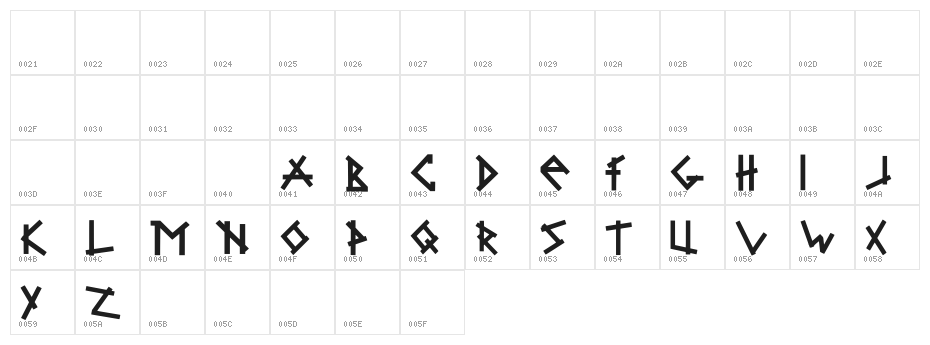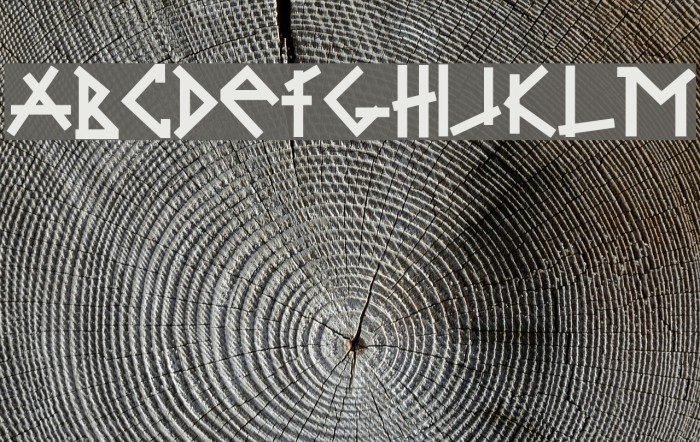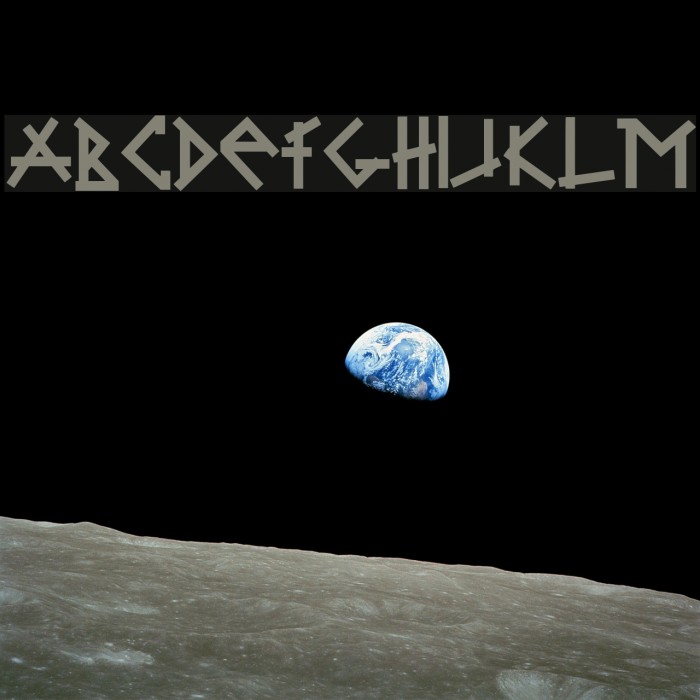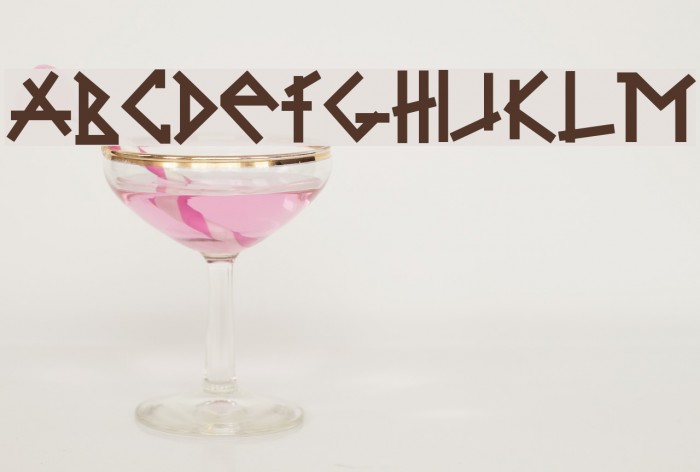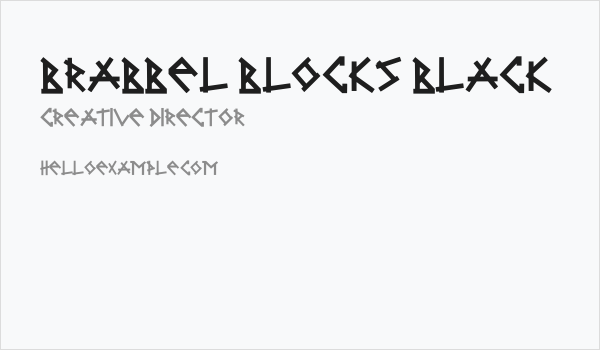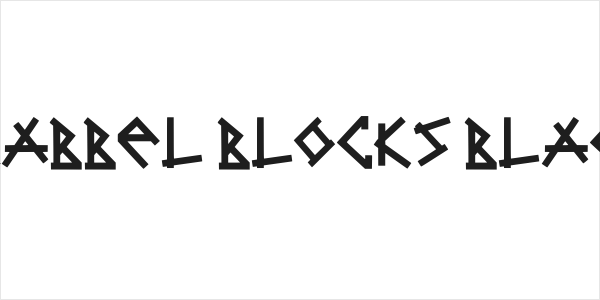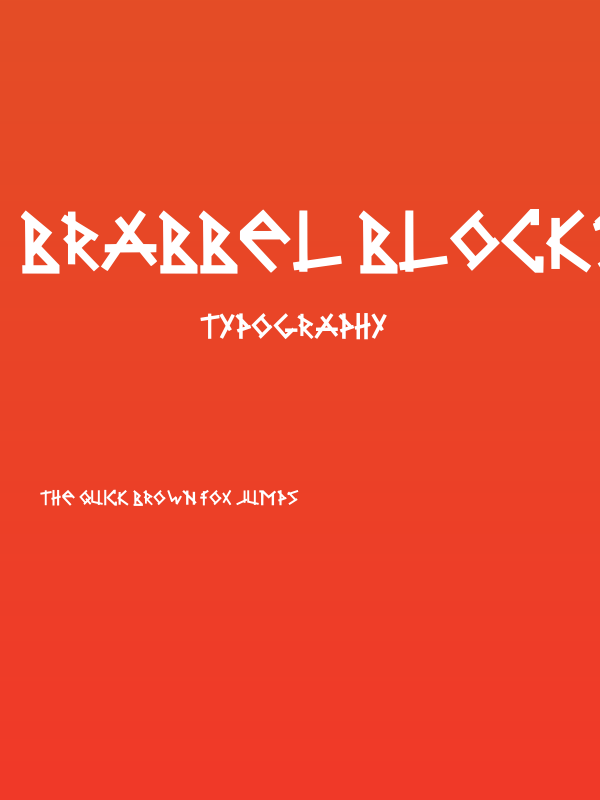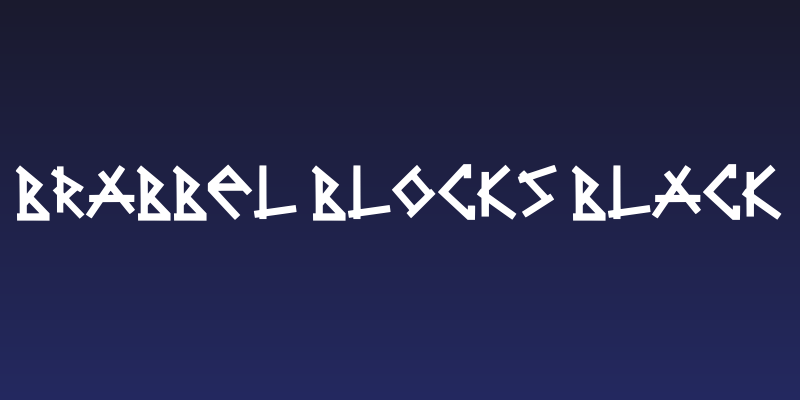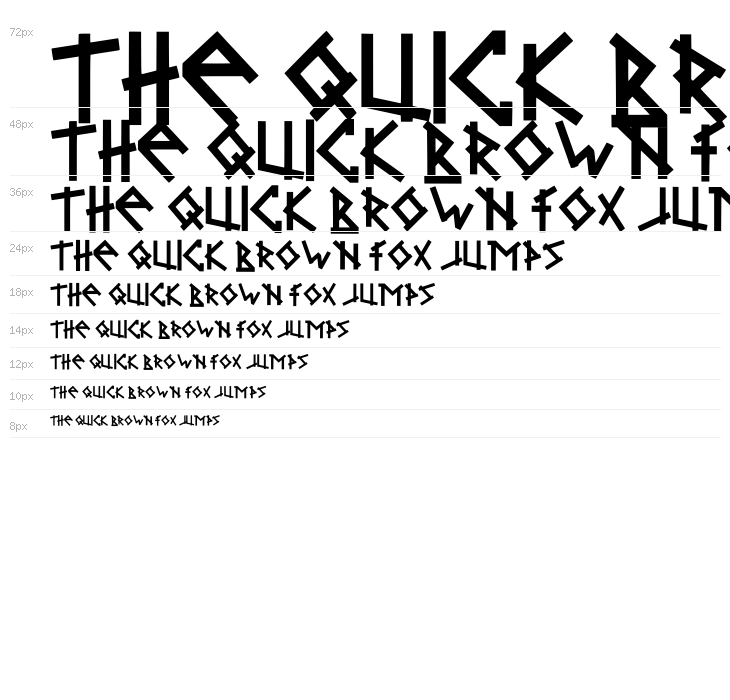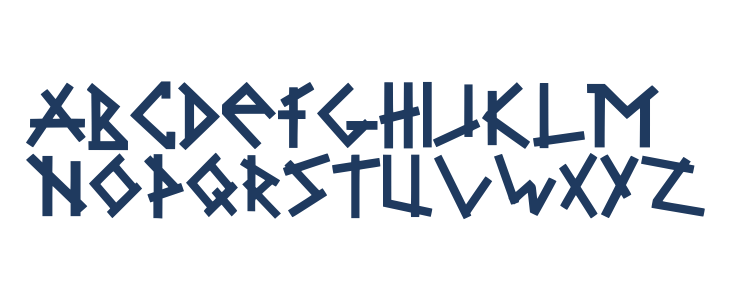
Brabbel Blocks Black Font
Brabbel Blocks Black Description
This font features a bold and striking design with angular, geometric shapes that create a sense of movement and energy. The characters are constructed with thick, block-like strokes that give a strong and assertive appearance. The unique style incorporates sharp angles and intersecting lines, creating a dynamic and edgy look. This font is highly decorative and stands out with its unconventional forms, making it suitable for attention-grabbing designs. The uppercase letters are particularly prominent, with each character maintaining a consistent height and width, contributing to a uniform yet visually intriguing appearance.
| Overall Style | Modern, Edgy |
| Proposed Projects | Ideal for posters, album covers, video game graphics, and any project needing a bold, edgy aesthetic. |